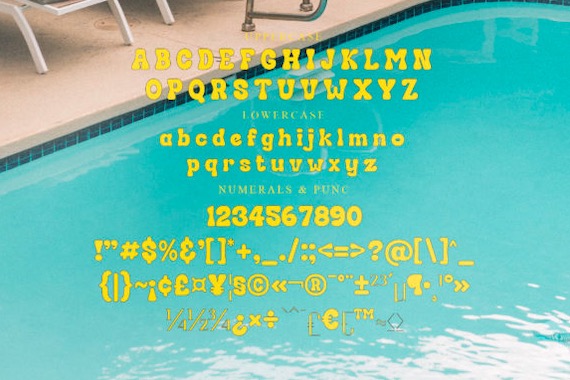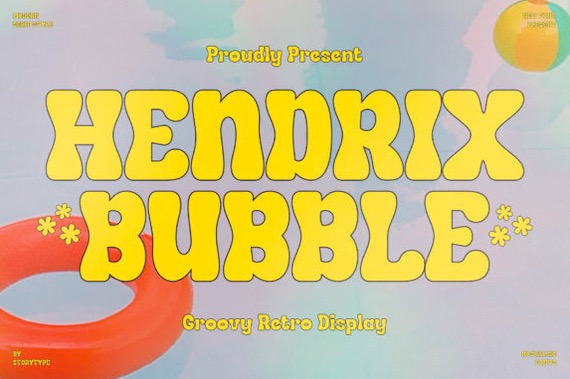
Hendrix Bubble Font is a classic and retro display typeface that was created and shared by Storytype Studio along with its own unique style and modern looks. This display font is very perfect for an elegant & bold logo, book or movie title design, fashion brand, magazine, clothes, lettering, quotes, and so much more.
Hendrix Bubble Display Font